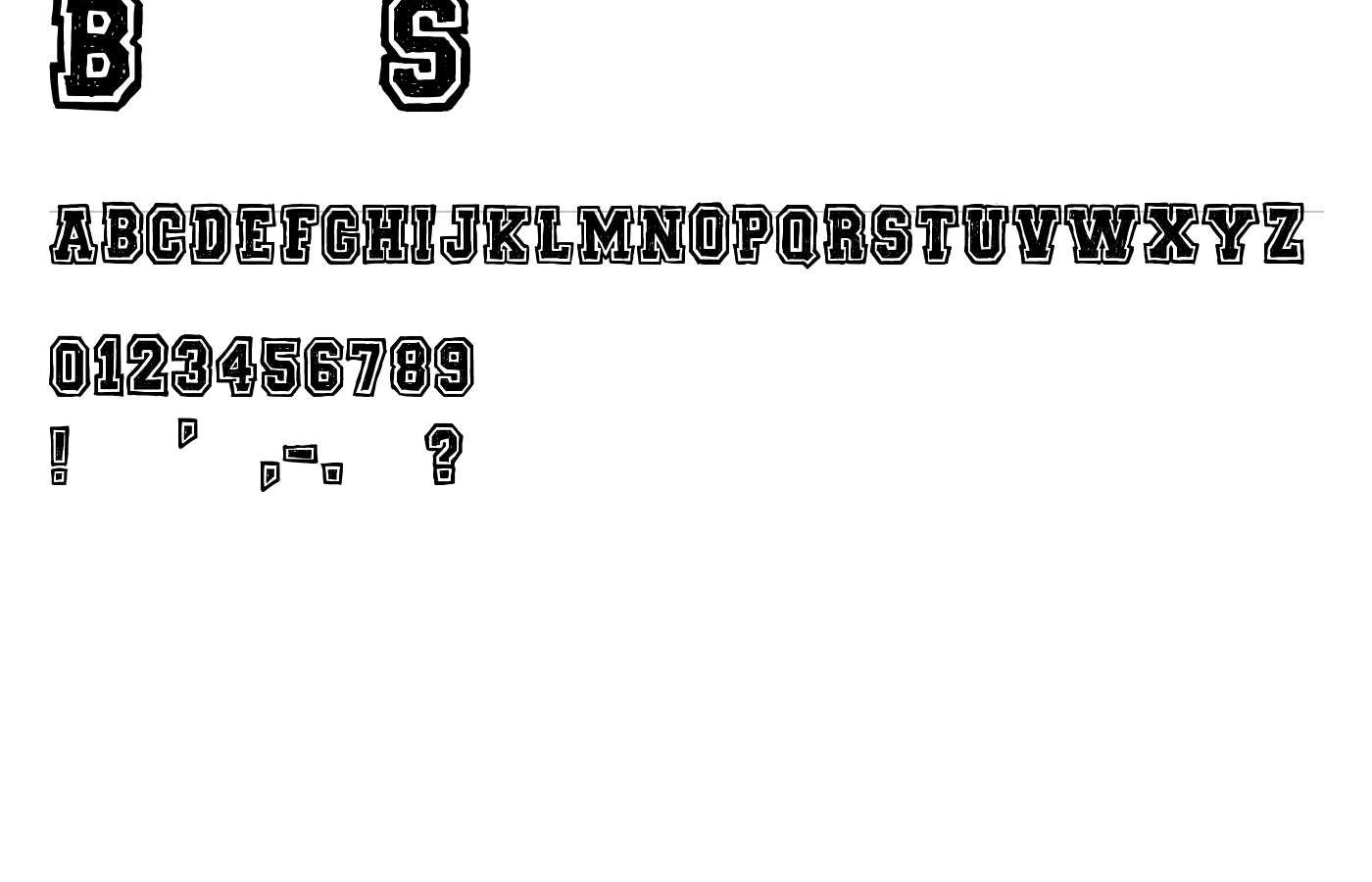
Back to School is a bold, slab serif display font with a vintage collegiate feel, featuring strong, blocky letterforms outlined with a rough, hand-drawn texture that adds a playful and nostalgic touch. Its sturdy, wide characters and high contrast strokes make it ideal for eye-catching headlines, posters, and branding that seek to evoke a sense of school spirit or retro charm. This font works best in designs that want to blend boldness with a fun, casual personality, perfect for educational themes, sportswear, or youth-focused projects.
Back to School Font
About Back to School Font